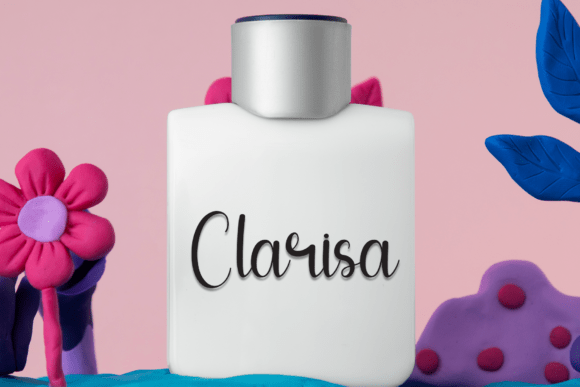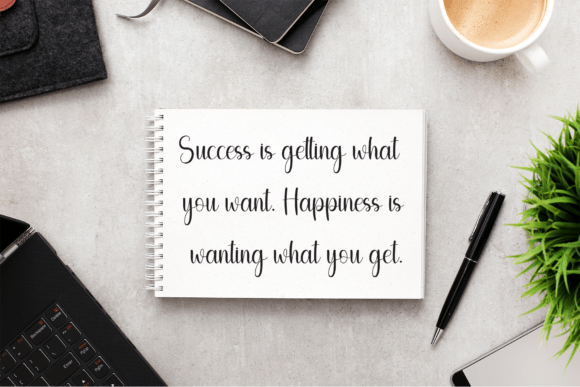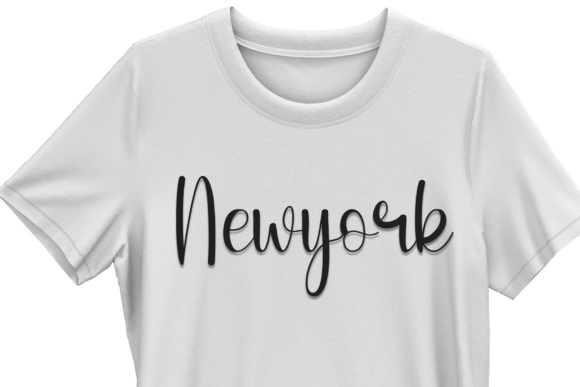
Rustic Font
About the Rustic Font
Unleash your creativity with Rustic Font, a versatile font perfect for a wide range of applications. Rustic is a stylish handwritten script font that blends modern elegance with a playful touch. Its fluid strokes and charming curves bring a personal feel to any design. Ideal for logos, packaging, and invitations, this typeface adds warmth, sophistication, and creativity to every project.
Rustic’s playful elegance makes it perfect for branding projects needing a touch of personality, especially for lifestyle brands, boutique shops, or artisanal products. It shines in headlines, short quotes, and logos, adding visual interest to packaging and invitations. However, its script nature makes it less suitable for body text or UI elements requiring high readability.
Consider pairing Rustic with a clean sans-serif like Montserrat for a contemporary contrast, or a classic serif such as Garamond for a more traditional feel. A geometric sans-serif like Futura could also provide a modern, balanced counterpoint to Rustic’s hand-drawn charm.
The font projects a friendly, approachable personality, combining a sense of sophistication with a casual, handwritten feel. Avoid using it for projects demanding a strictly formal or corporate aesthetic.